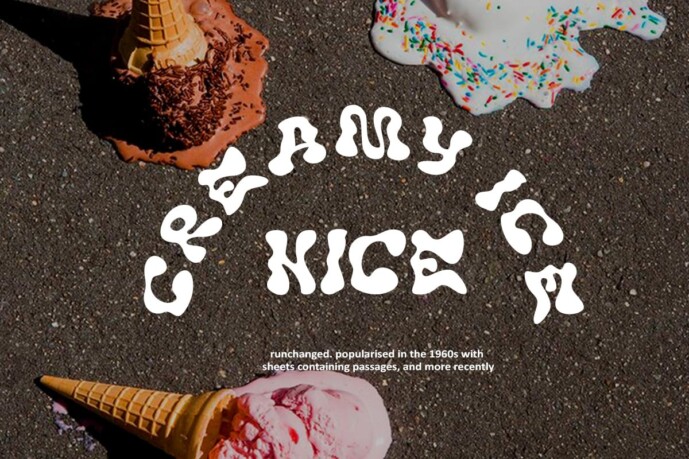
Keep Faith Font
Designer: Muntab_Art
Keep Faith fonts include uppercase letters, lowercase letters, numbers and a wide range of punctuation. Bubble font with retro style. Created for posters, web design, branding, illustrations, badges and some other works.